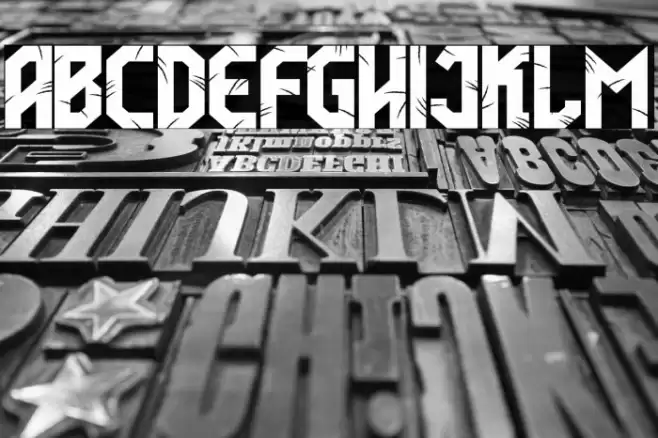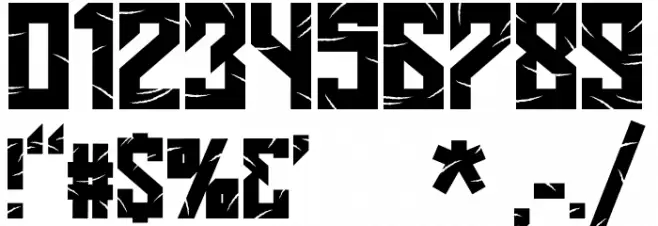
CakarMonyetBold Font
CakarMonyetBold Description
This font features a bold and aggressive design with sharp, angular edges and a distressed texture that gives it a rugged, edgy appearance. The uppercase and lowercase letters maintain a consistent style, with each character exhibiting a unique, claw-like pattern that adds to its dynamic and energetic feel. The numbers and special characters follow the same design principles, ensuring a cohesive look across all elements. This font is ideal for projects that require a strong, impactful visual presence.
A bold, edgy font with sharp, angular edges and a distressed texture from Decorative fonts.
- Proposed Projects: Perfect for music album covers, sports team logos, action movie posters, and gaming graphics.